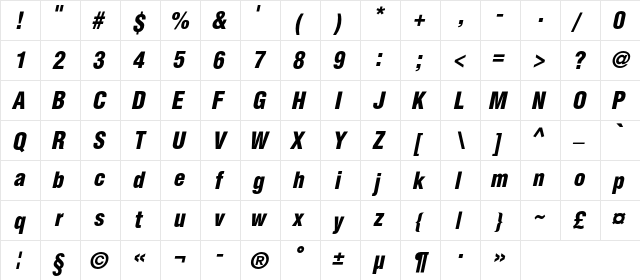
HeliosCondBlackC Italic Font Preview
Design Context for HeliosCondBlackC Typeface
HeliosCondBlackC is a composed and adaptable typeface that performs quietly and consistently across a wide range of design contexts. The dynamic lean of this cut emphasises speed and emphasis in any layout. Its narrow stance lets it pack a punch even in space-constrained designs.
Pro Tip: Try HeliosCondBlackC for annotation and caption copy alongside an upright companion — the contrast in angle creates a dynamic but ordered typographic system.